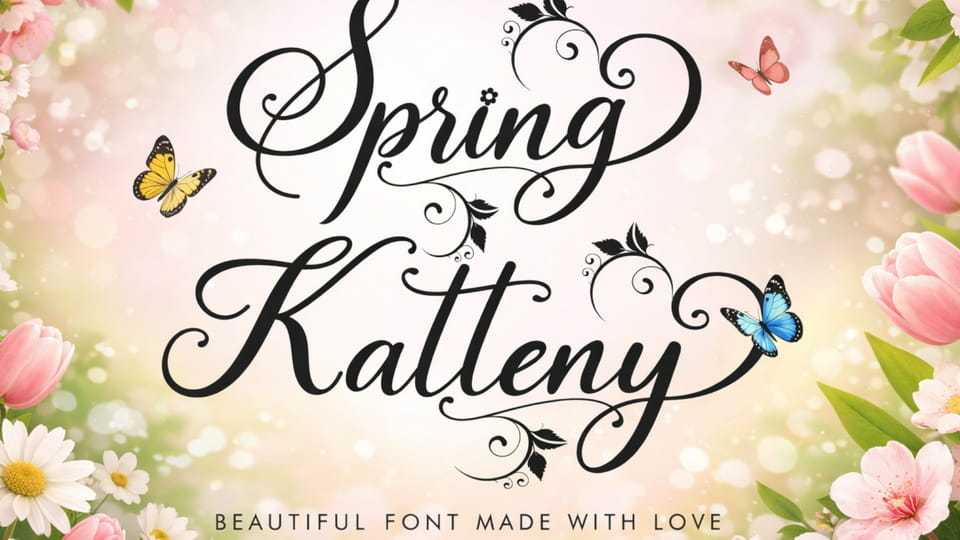
Download Spring Katteny font, a beautiful and pretty handwritten typeface. It’s perfect for spring, summer, holidays, St. Patrick’s Day, Mother’s Day, Father’s Day, Women’s Day, weddings, photography, print, banners, branding, logos, stickers, and more.